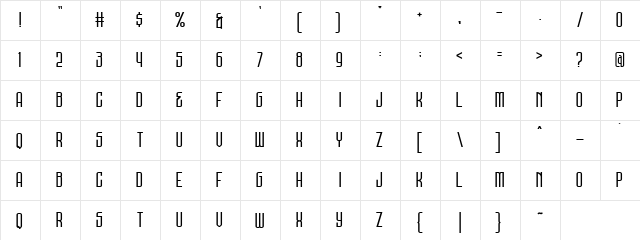
DNS Gibsons One Demo
| Foundry | DNS Studio |
| Designer | DNS Studio |
| Year | 1948 |
Design Context for DNS Gibsons One Typeface
DNS Gibsons One is a composed and adaptable typeface that performs quietly and consistently across a wide range of design contexts.